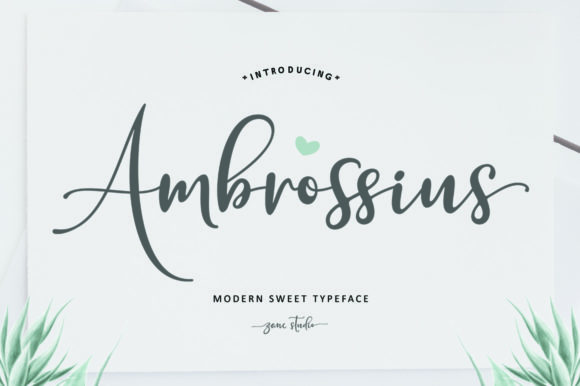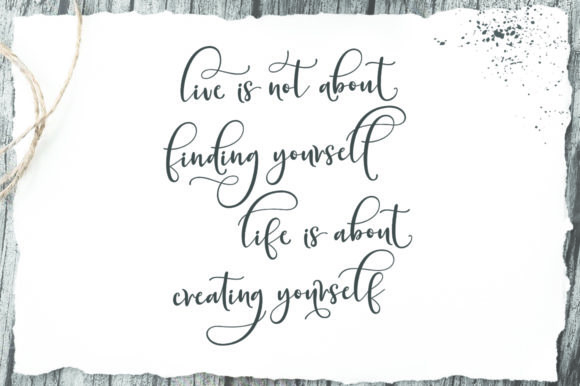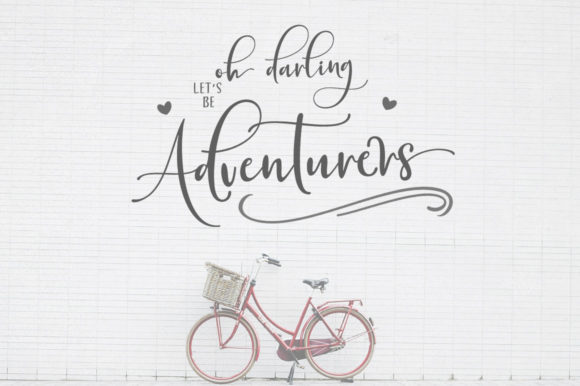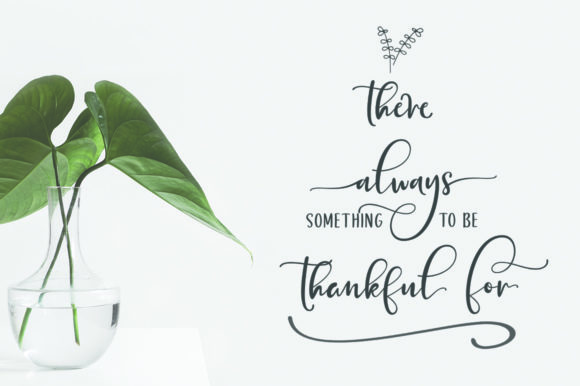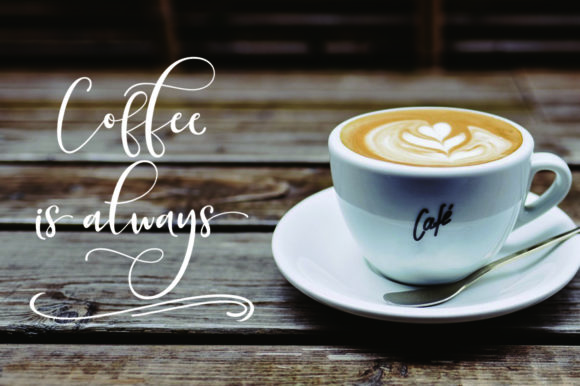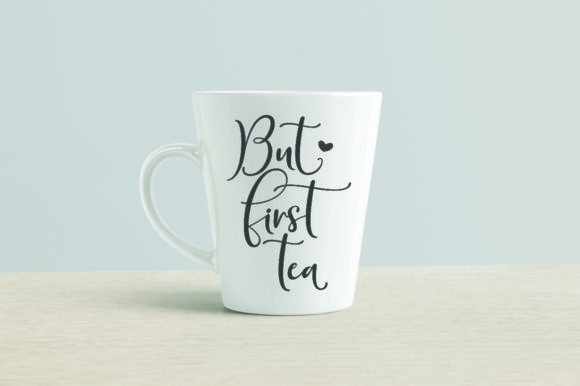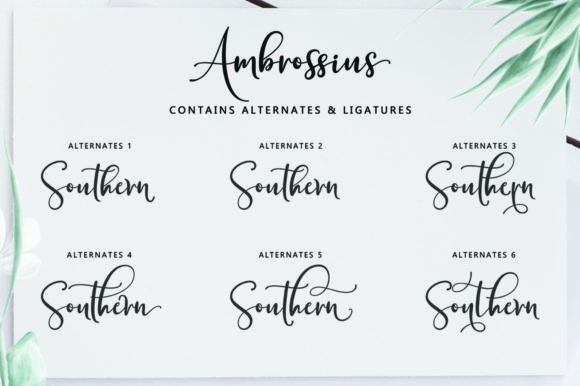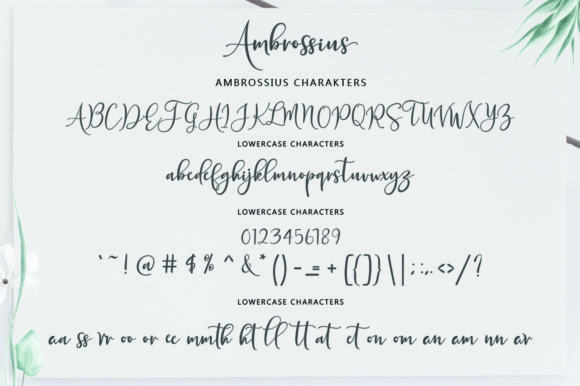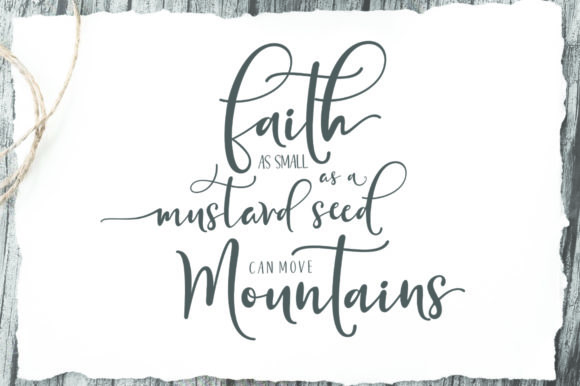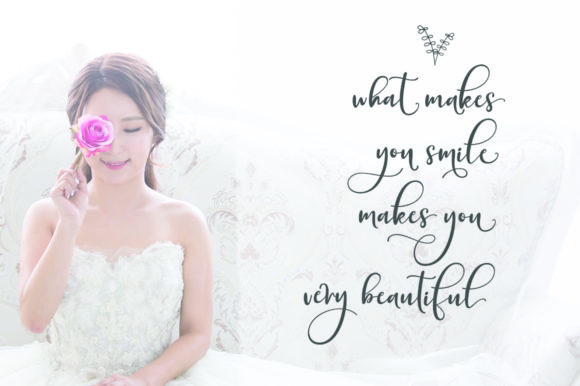
Ambrossius Script Font
About Ambrossius Script Font
A classic crafting font, Ambrossius is a fun and cool handwritten font with a unique twist. Use it to turn any design project into a true standout!